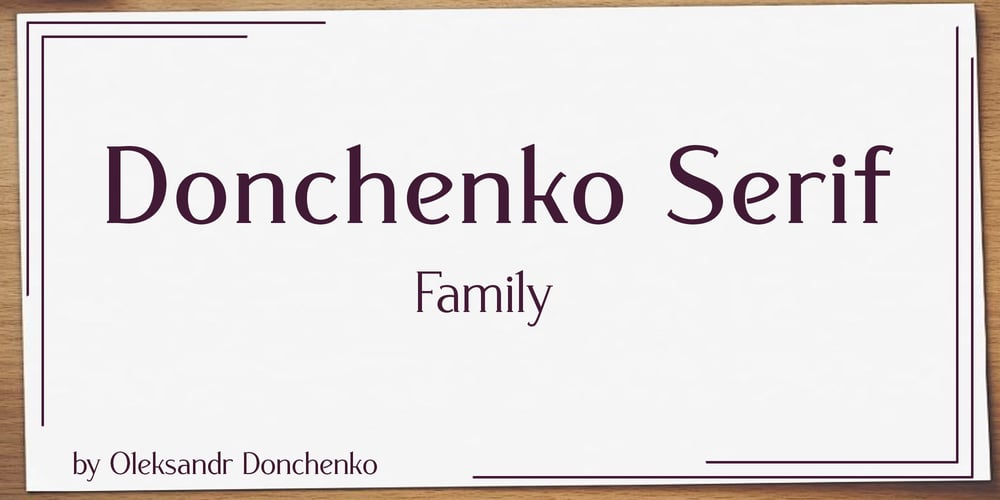
Donchenko Serif
Donchenko Serif font
Donchenko Serif Font Family was designed by Oleksandr Donchenko and published by Donchenko. Donchenko Serif contains 7 styles and family package options. Donchenko Serif is a leisurely, elegant, minimalist serif typeface that combines references to medieval half-uncials with Art Nouveau motifs. Its styles are well readable and at the same time have individual features, which makes this typeface stand out from the rest.Donchenko Serif is a “universal soldier”. It’s great for any challenge. It is also good for typing books or articles, designing corporate identity and promotional materials, or creating display cases.A wide range of Latin, Greek, Cyrillic and special characters provides extensive language support for all European languages.Font Donchenko Serif Regular was developed by designer Oleksandr Donchenko in Lviv (Ukraine) in the first half of 2022. His daughter – Sofia Donchenko – took part in the development some letters.Donchenko Serif – Good font for good people!